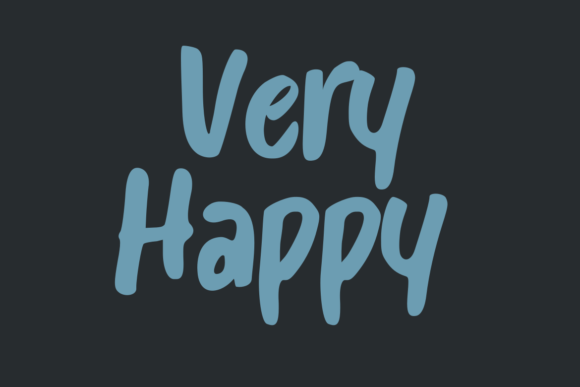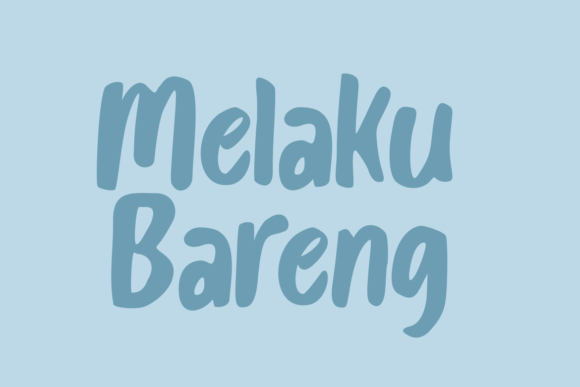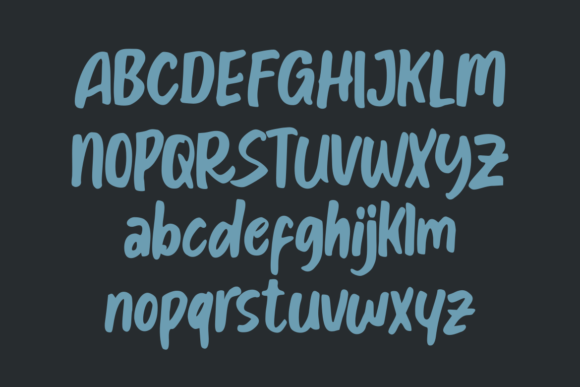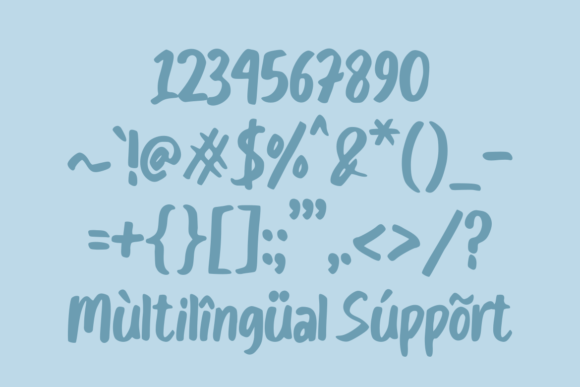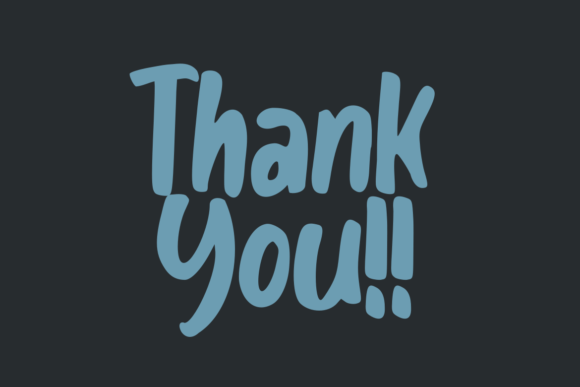
Discover the Authentic Touch of Banyu Adem Font
You know that feeling when a single font can elevate an entire design project? For many creatives, it’s the moment when the perfect combination of style and meaning comes together, and the project starts to take shape. That’s exactly what happened when we stumbled upon the Banyu Adem Font – a unique display font that adds an authentic and creative touch to any design.
Banyu Adem Font is designed to bring a sense of individuality to your projects, making it perfect for designers who want to stand out from the crowd. With its distinctive character, this font is a valuable asset for any design professional looking to add a personal touch to their work. Whether you’re working on a branding project, a poster, or a website, Banyu Adem Font is sure to make a lasting impression.
Banyu Adem Font Key Features
- Font Family: Banyu Adem, a unique and elegant font designed for various applications.
- Unique Characteristics: Distinctive stroke styles, elegant letterforms, and subtle nuances make Banyu Adem stand out.
- Font Weight: Available in Light, Regular, Medium, Bold, and Extra Bold weights for added flexibility.
Banyu Adem Font Review
I recently had the chance to work with the Banyu Adem font, and I must say it’s a fascinating typeface. Here’s my honest review.
- The Banyu Adem font is perfect for creating a unique, hand-drawn feel in your designs. Its irregular shapes and subtle imperfections add character to any text.
- The font’s versatility makes it suitable for various design projects, from branding and advertising to digital products and editorial content.
- The font’s bold and regular weights make it easy to create visually appealing contrast in your designs.
- The font may not be the best choice for body text, as its irregular shapes can make it difficult to read at small font sizes.
- The font’s unique character may not be suitable for all audiences, particularly those who prefer clean and minimalist designs.
- The font’s limited language support may be a limitation for designers working on projects that require text in multiple languages.
Overall, I think the Banyu Adem font is a great choice for designers looking to add a touch of personality to their projects. While it may have some limitations, its unique character and versatility make it a valuable addition to any design toolkit.
Comparison to Banyu Adem Font: Poppins Font is more geometric and clean, whereas Banyu Adem Font has a more organic feel. Poppins Font is better suited for digital media, while Banyu Adem Font has a more traditional feel.
Comparison to Banyu Adem Font: Lato Font is more rounded and friendly, whereas Banyu Adem Font has a more angular feel. Lato Font is a more versatile font, suitable for a wider range of applications.
Q: Does Banyu Adem Font support Unicode characters?
Yes, Banyu Adem Font includes a wide range of Unicode characters, including Latin, Cyrillic, and other scripts, making it suitable for use in multilingual designs.